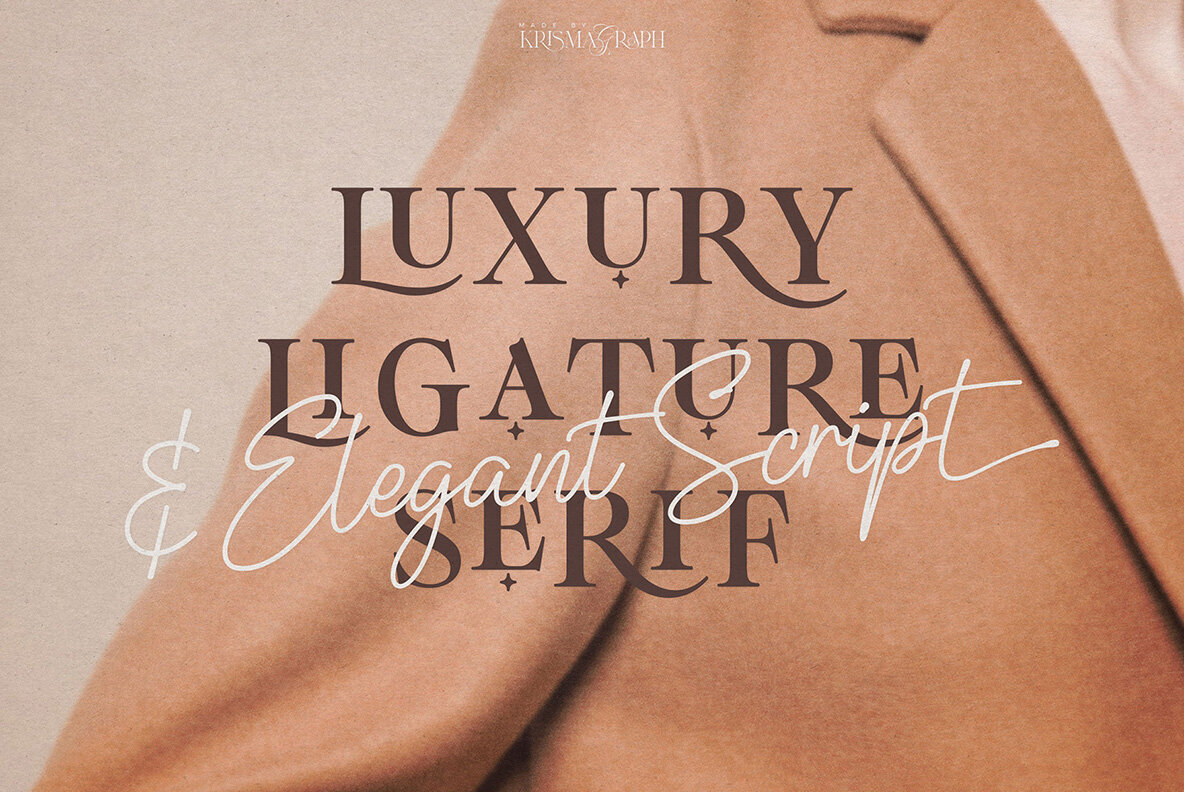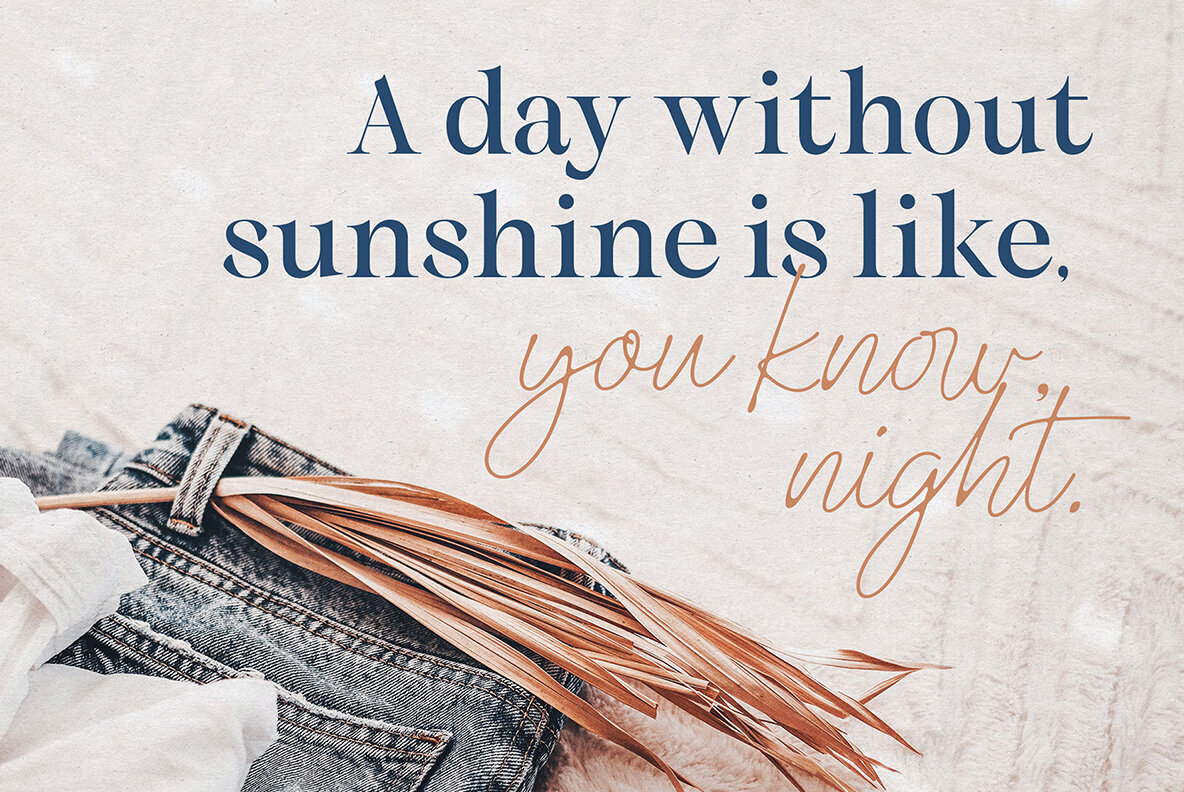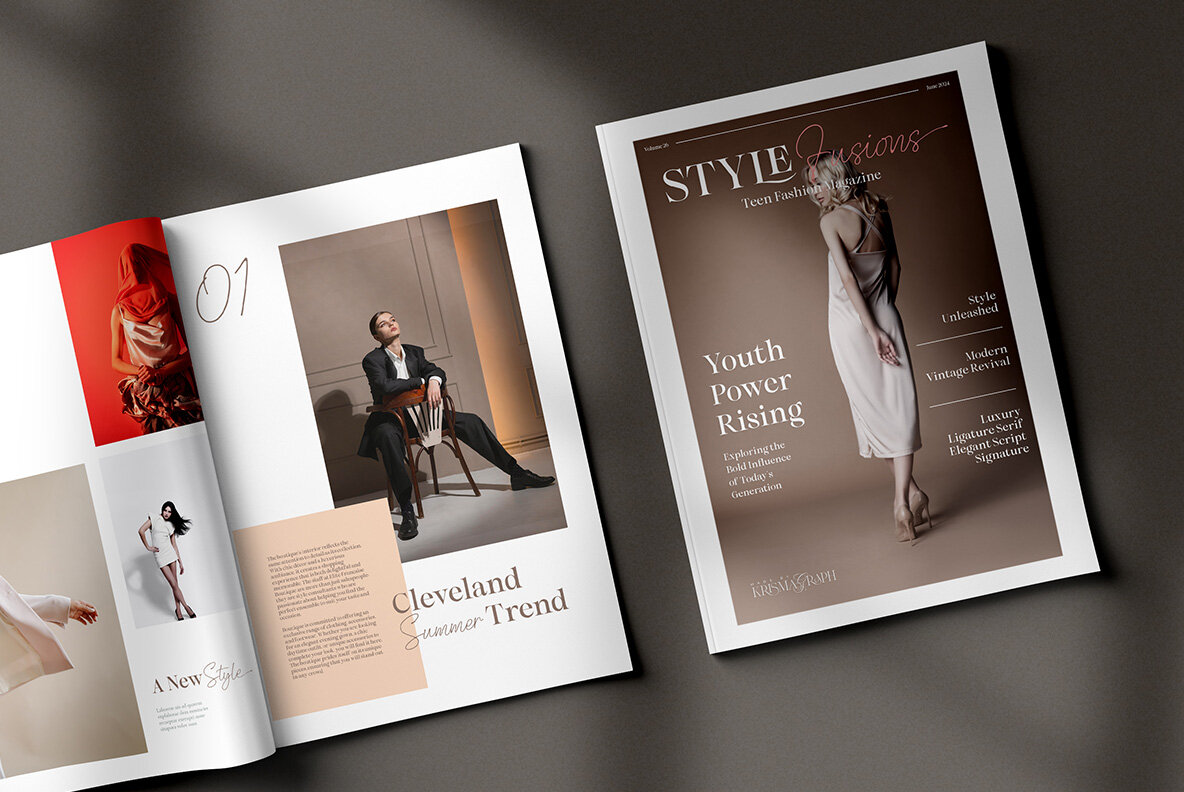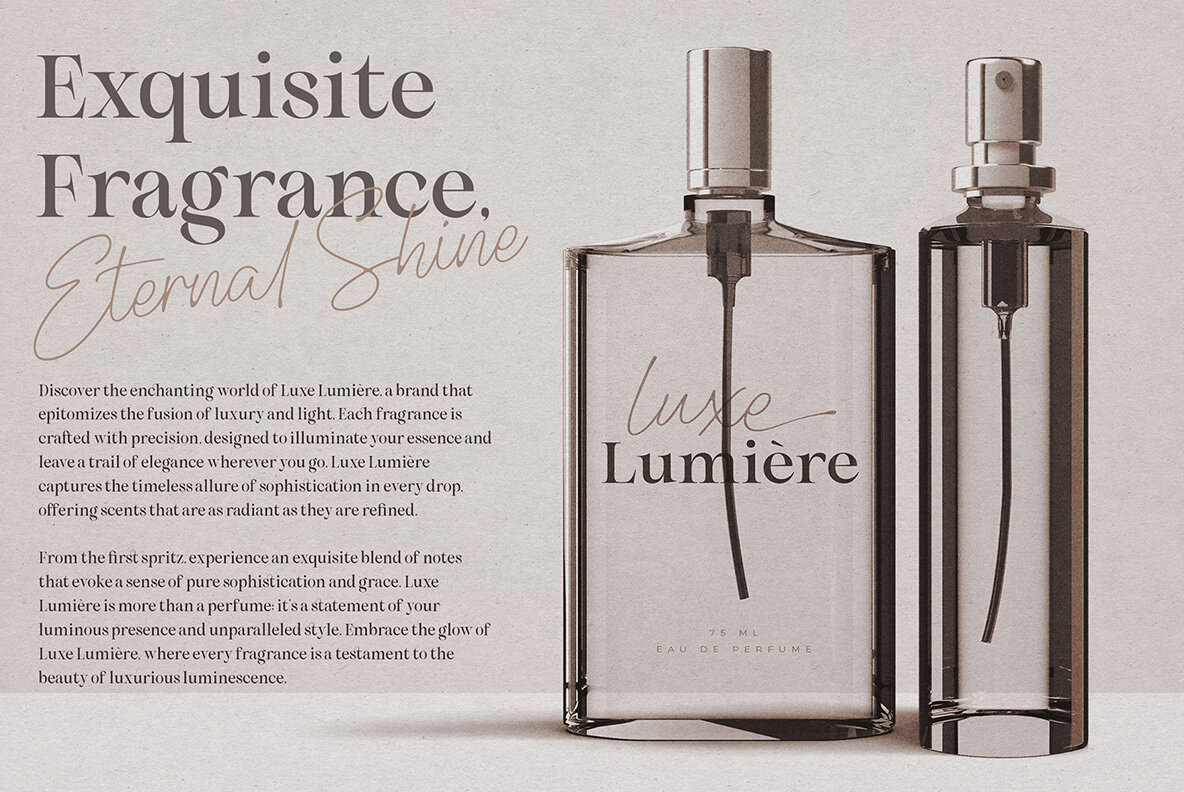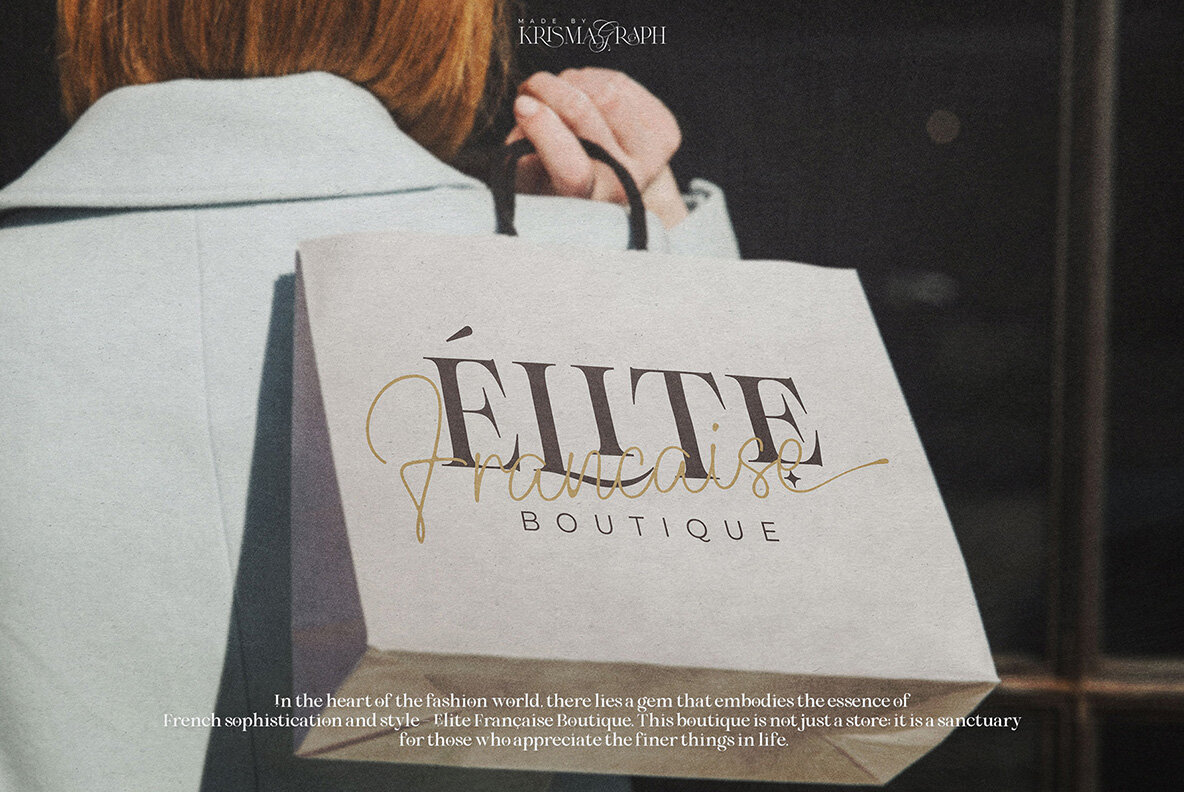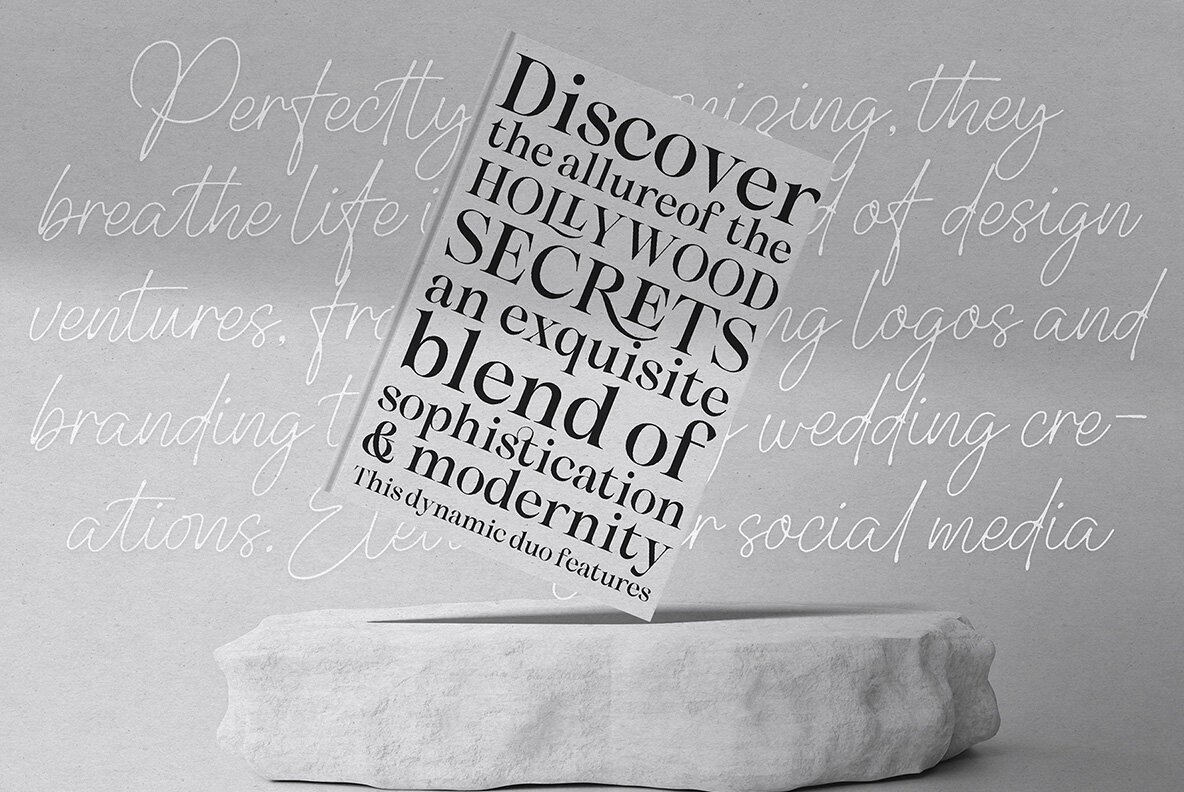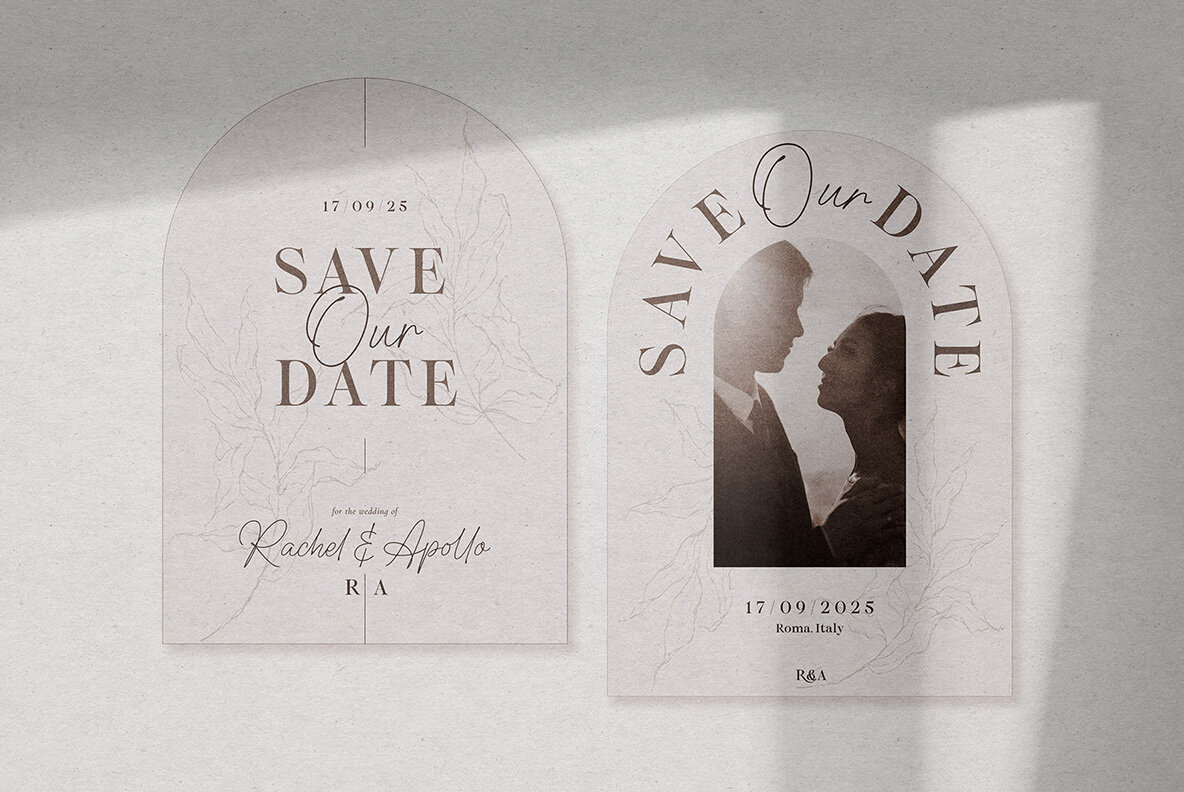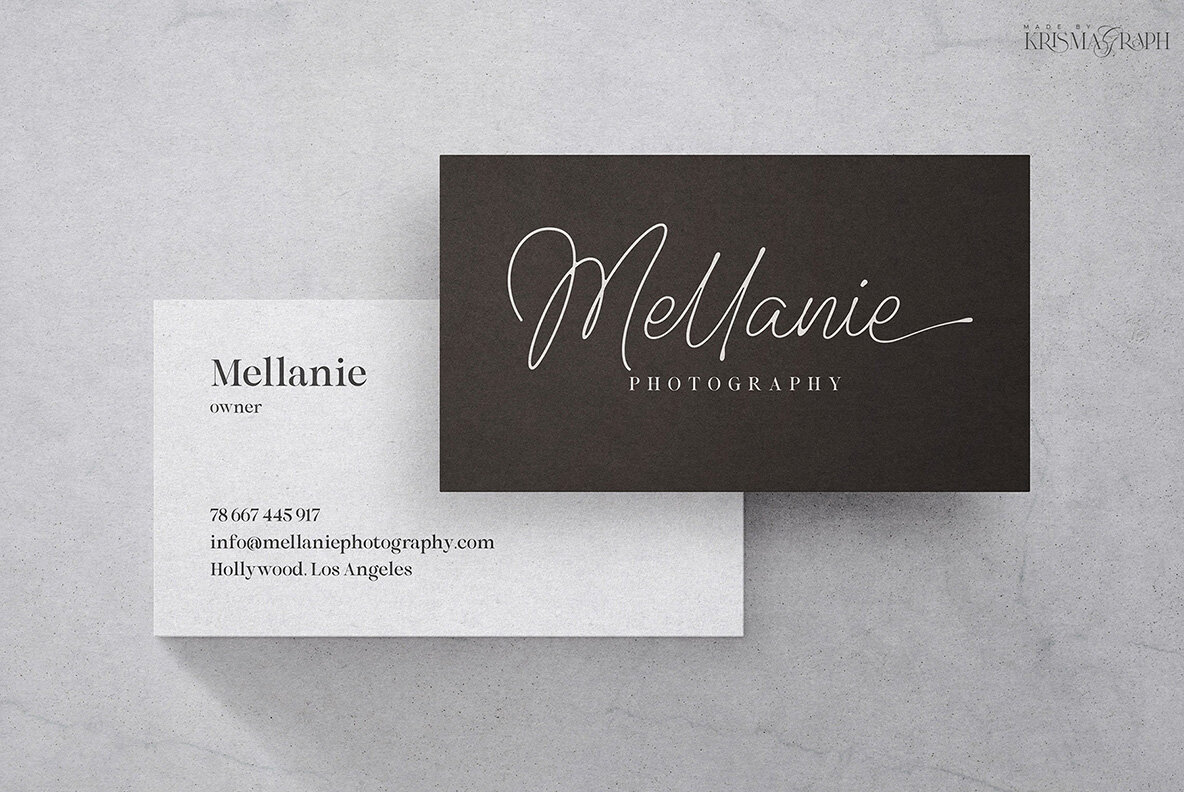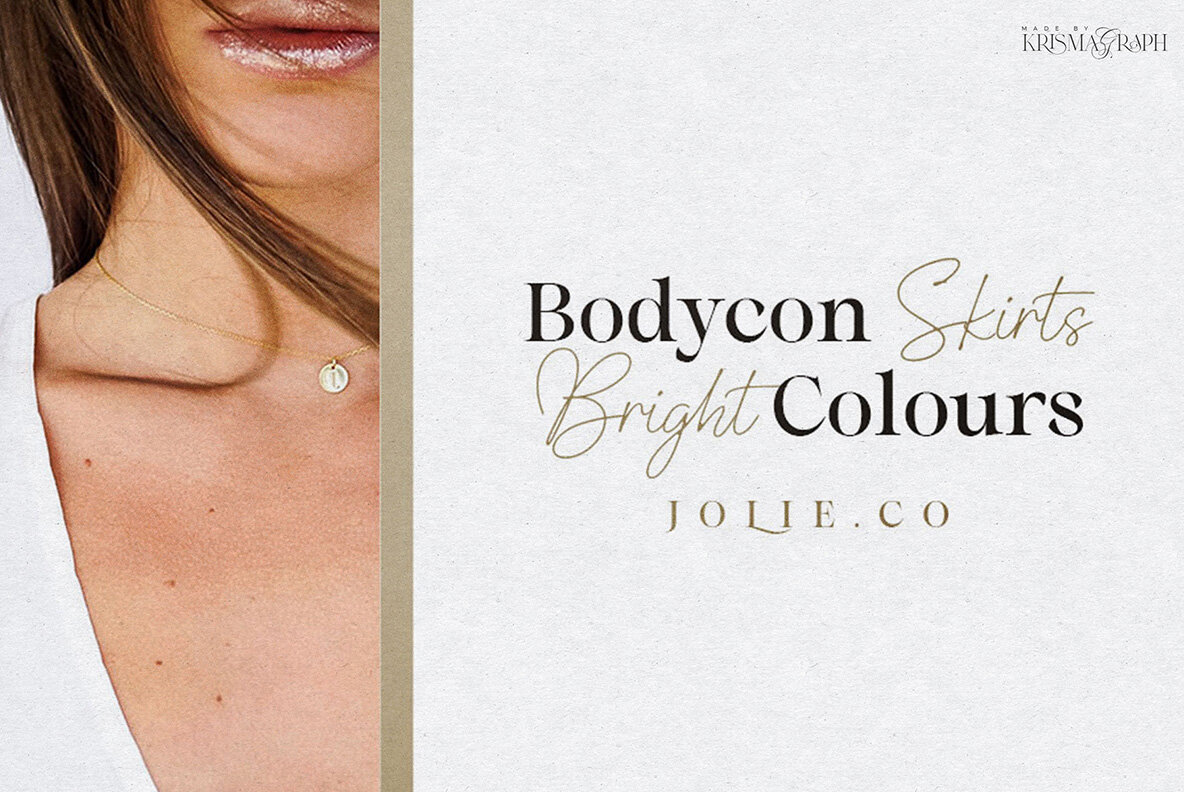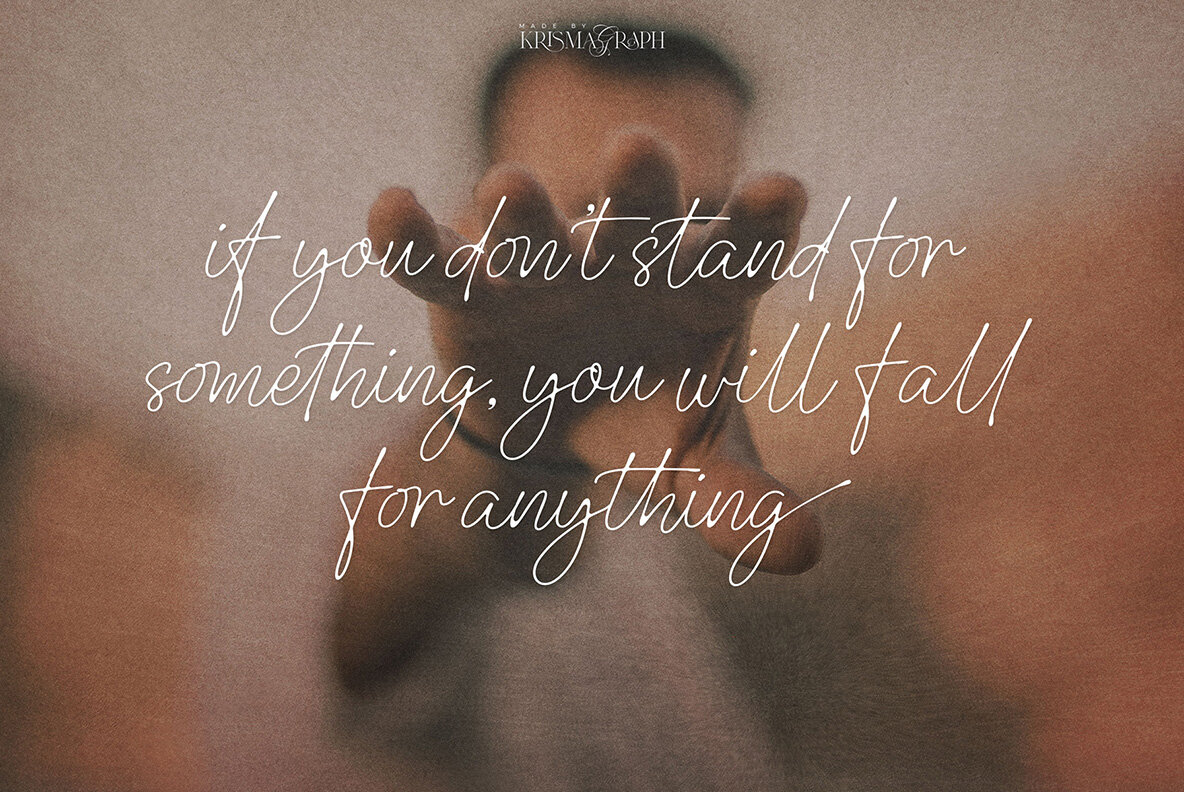
Hollywood Secrets Font
Discover the appeal of Hollywood Secrets Script Serif Font Duo – a beautiful blend of sophistication and modernity. This dynamic duo features a sleek didot-style serif font complemented by beautiful ligatures and alternates combined with a fluid and expressive script companion that also features multiple ligatures. The harmony is perfect, everything breathes life into a variety of design endeavors, from captivating logos and branding to stunning wedding creations. Increase your social media presence, captivate your audience with engaging ads, and infuse charm into your product designs. Uncover the magic of Hollywood Secrets for an unforgettable typography journey.